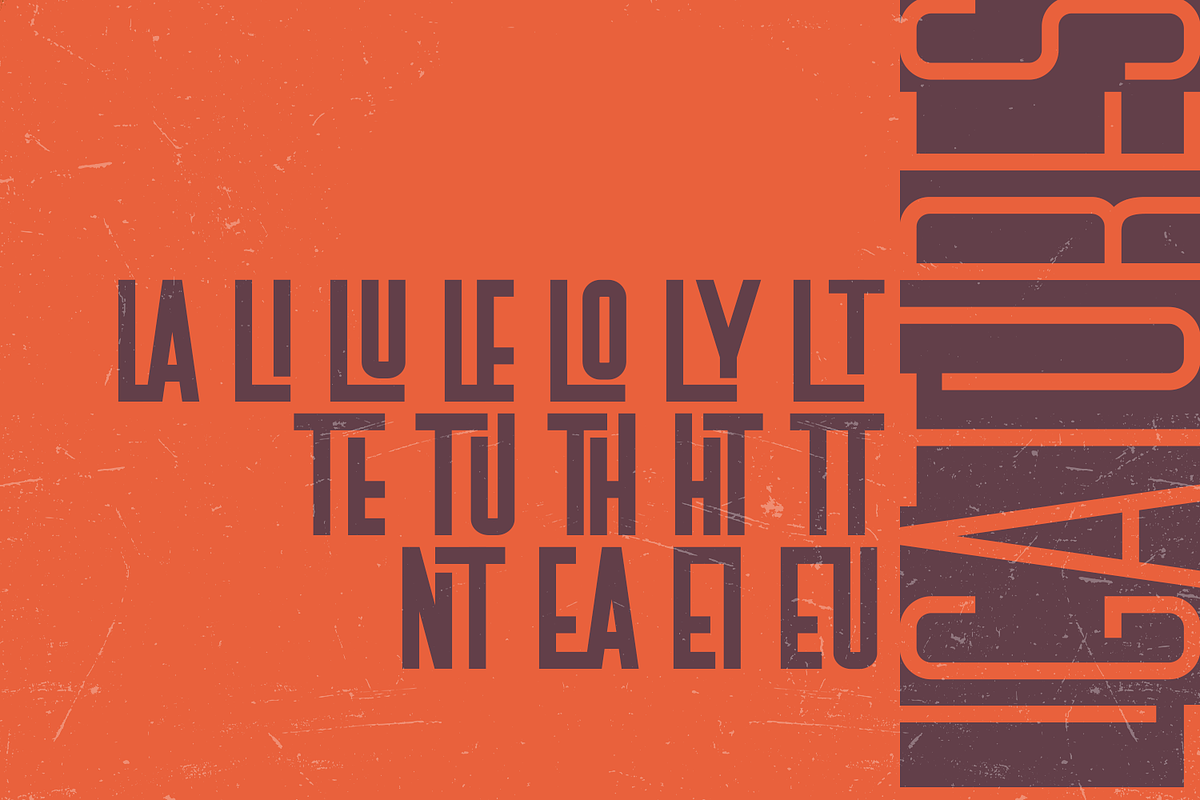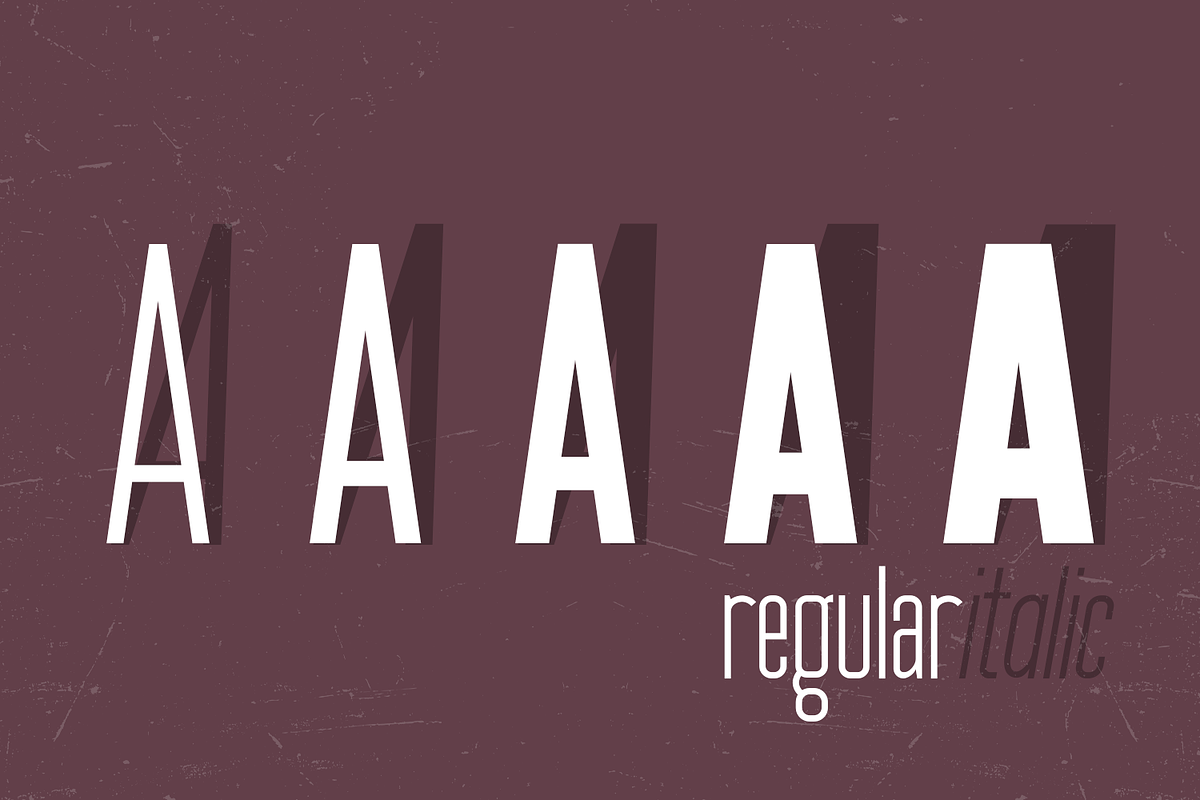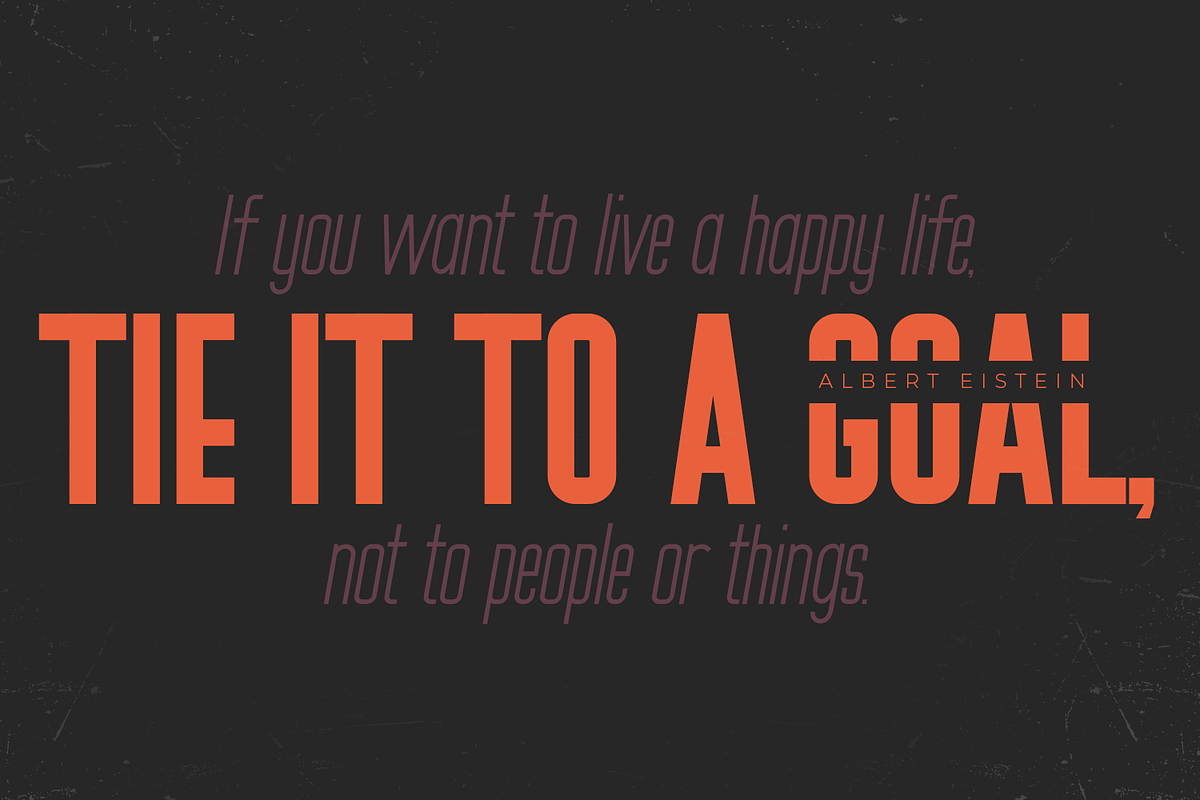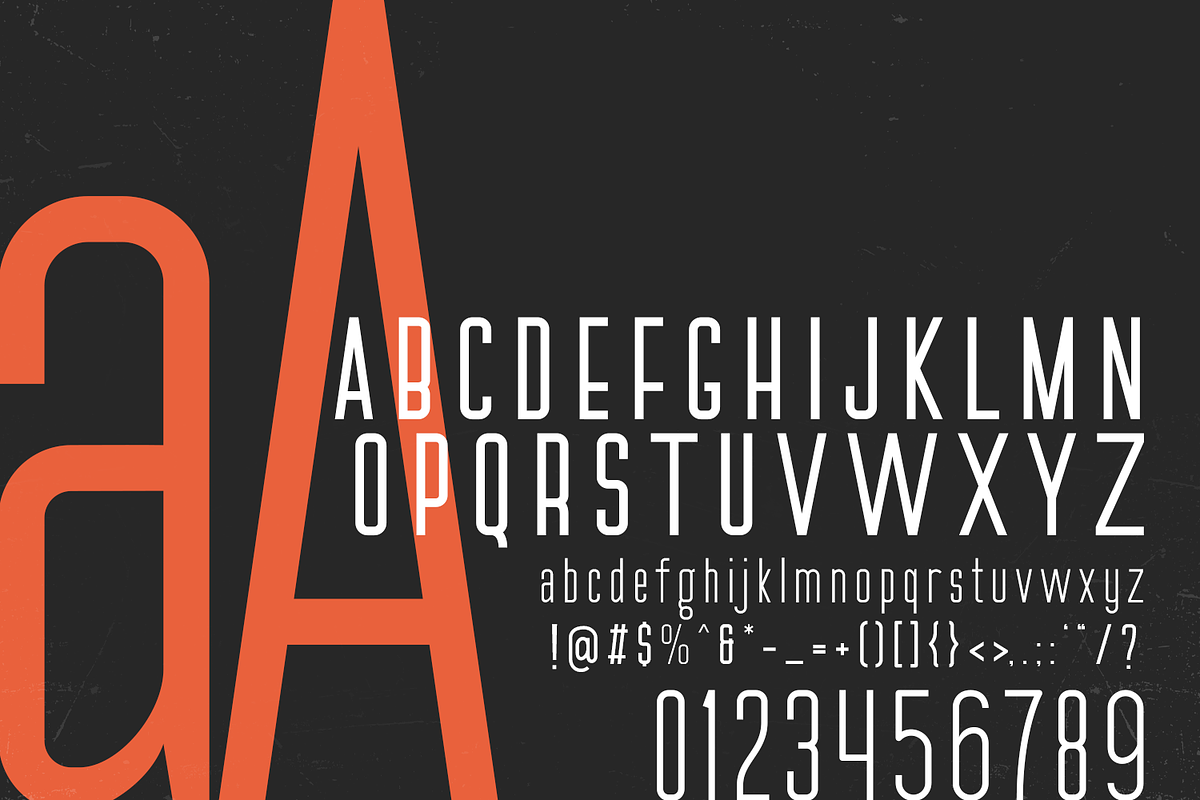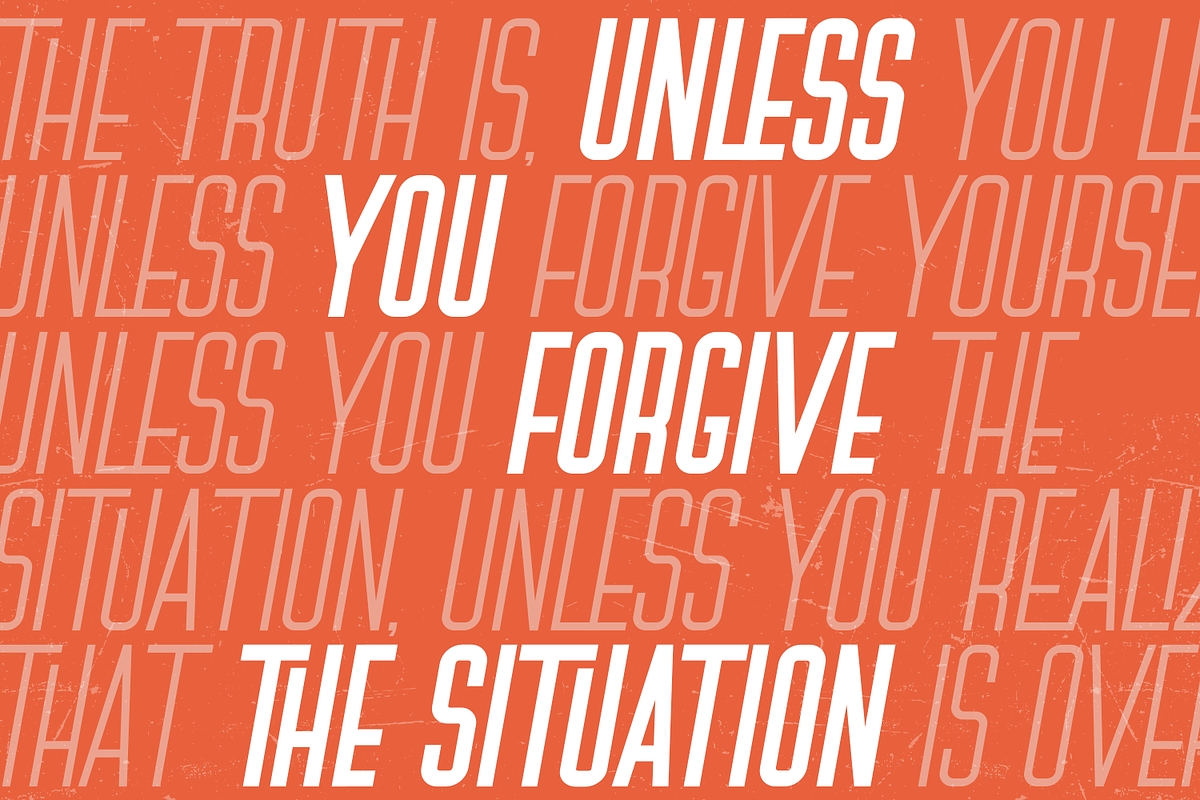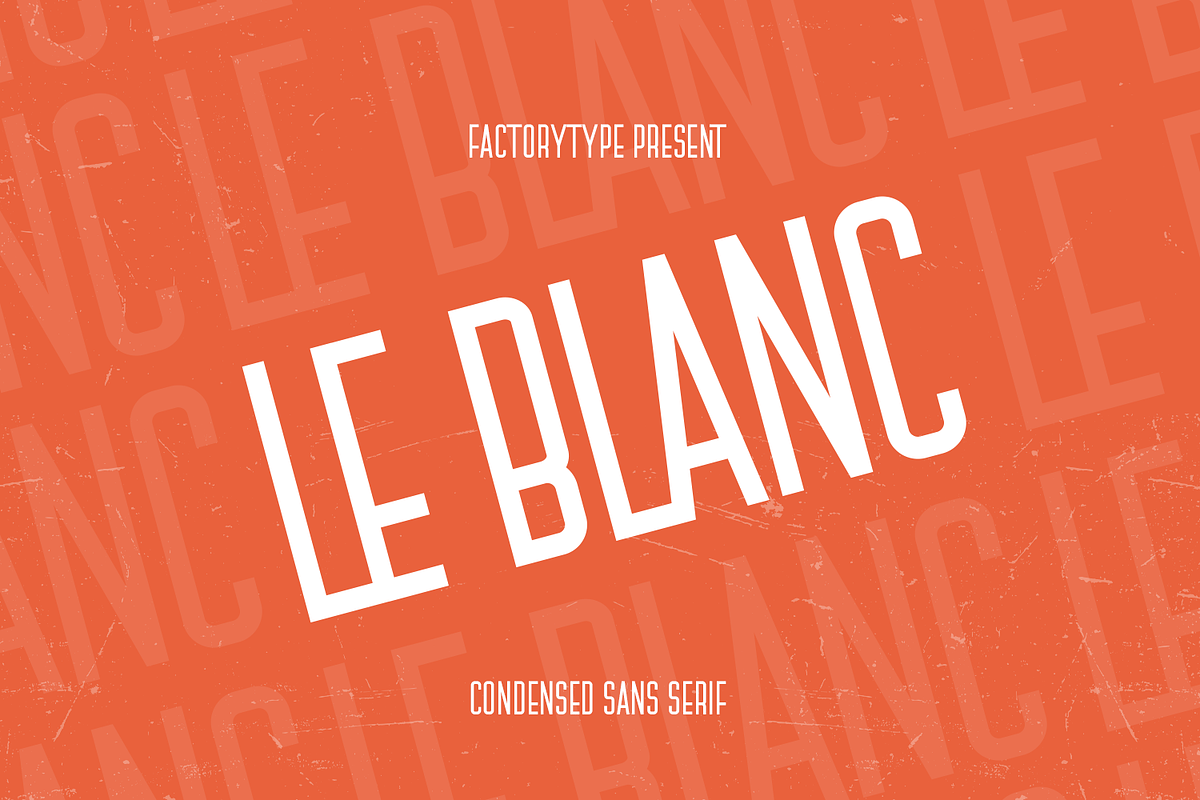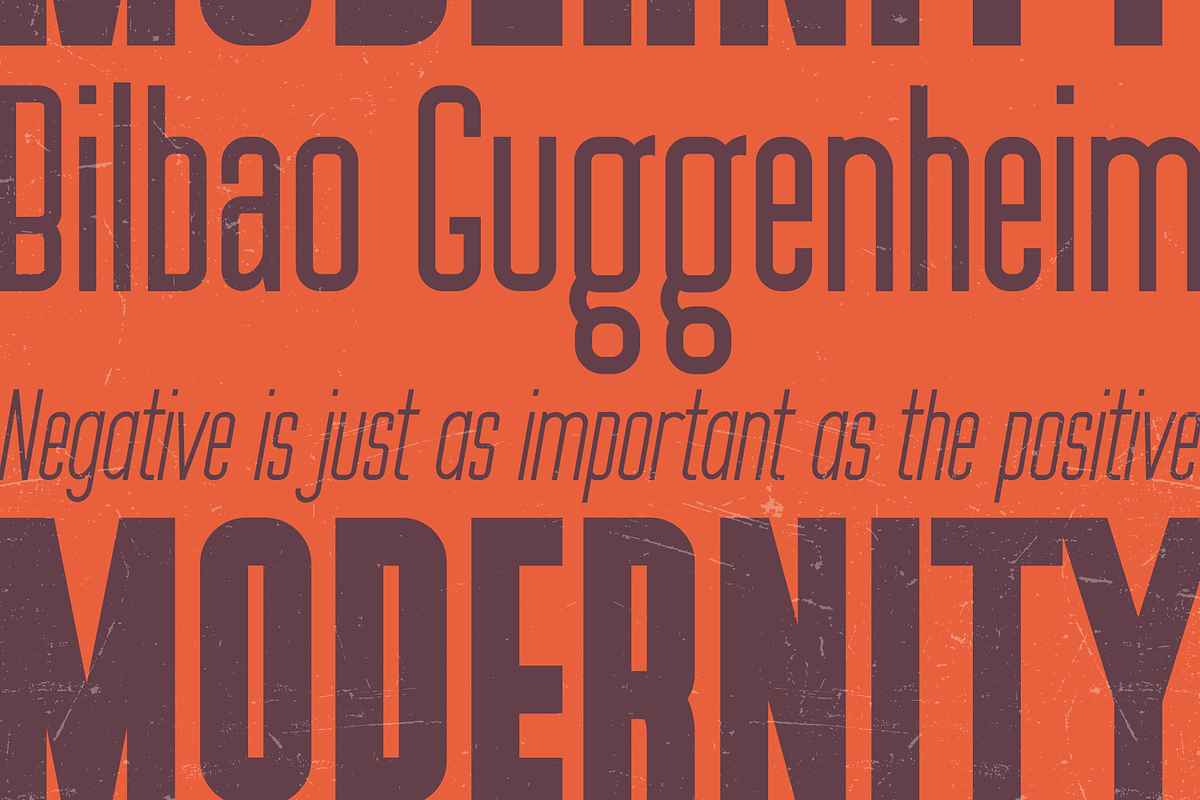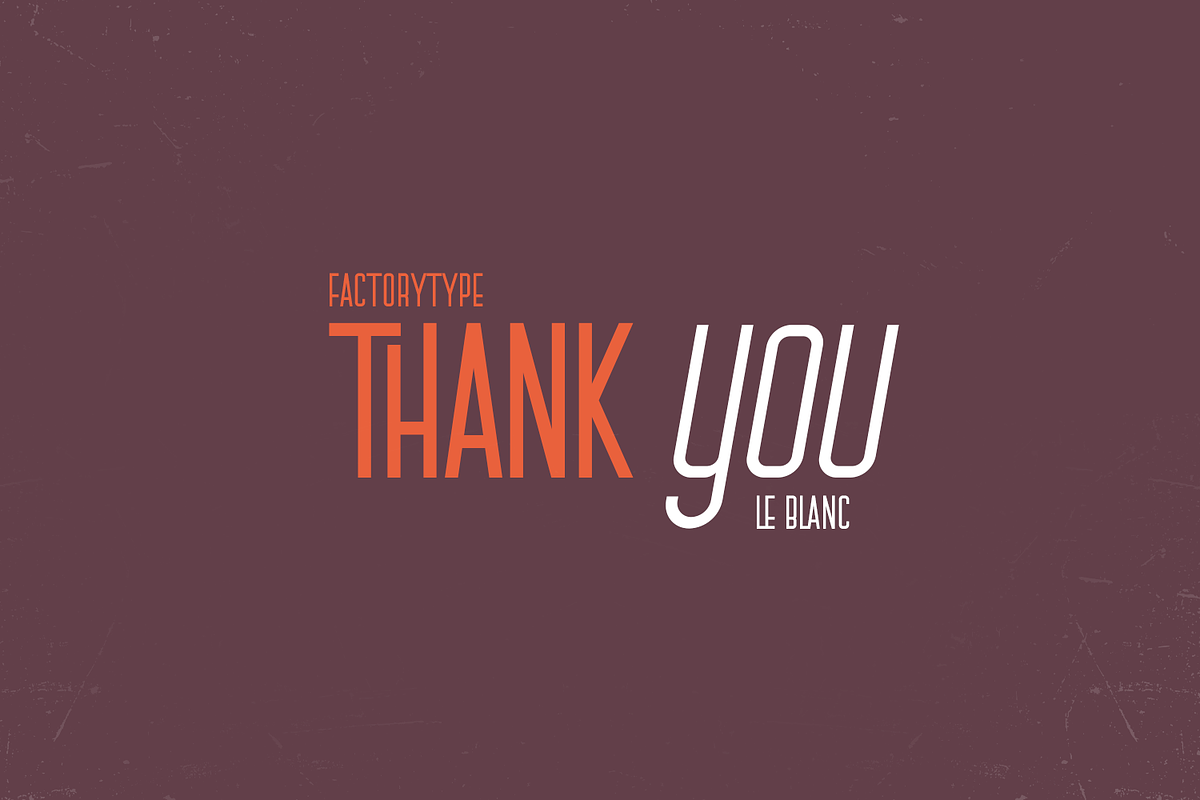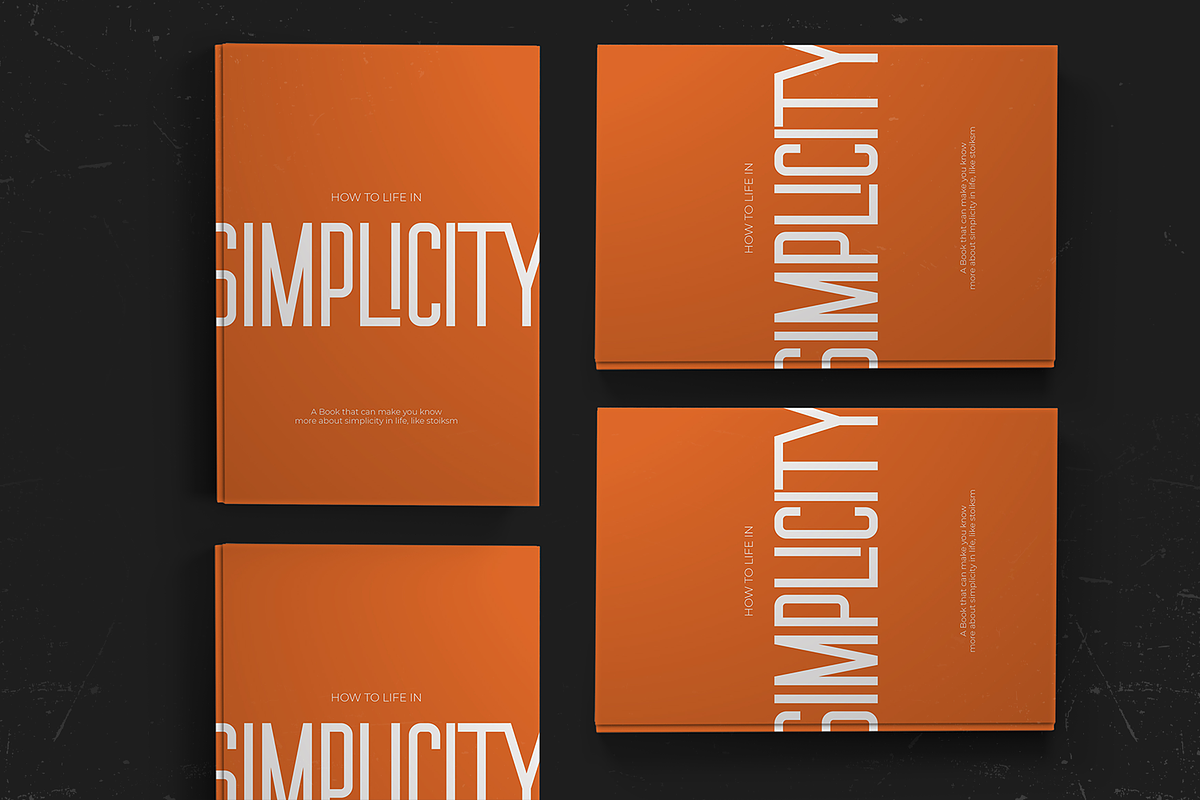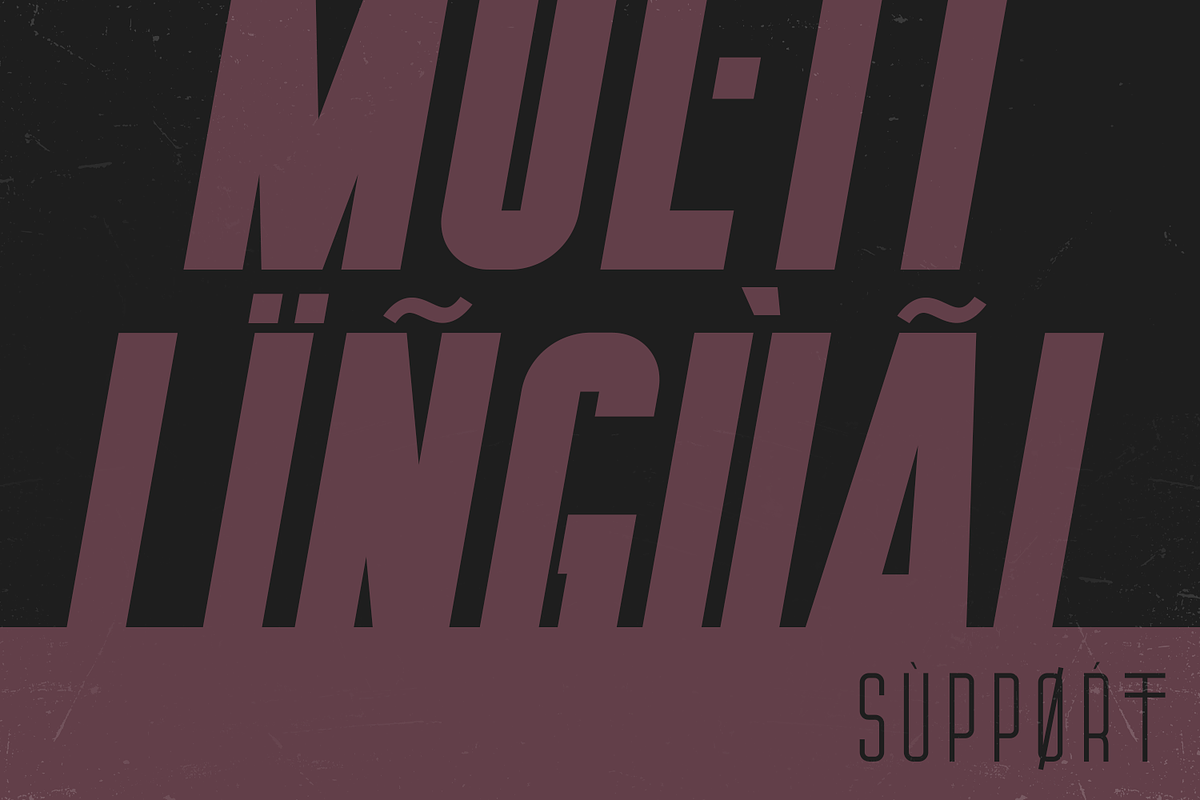
LeBlanc - Condensed Sans Serif
Le Blanc is a strong and condensed sans serif font family with a retro vibe. Combining vintage and minimalist elements resulted in an elegant design. The different weights give you a lot of options when it comes to choosing the right typographic color for your project.
- 5 Weights (Thin, Light, Regular, Medium, Bold, Black)
- 2 Styles (Regular and Italic)
- Stylistic Ligatures glyphs
- Multilingual Support for ä ö ü Ä Ö Ü ...